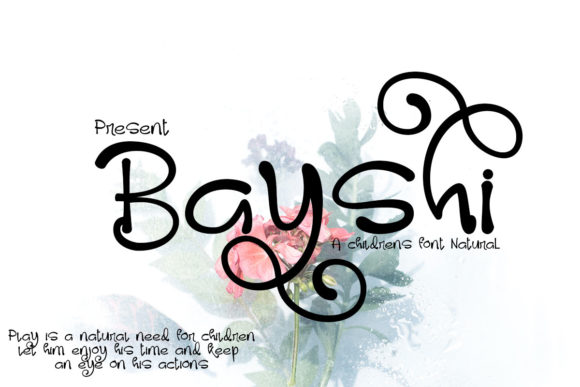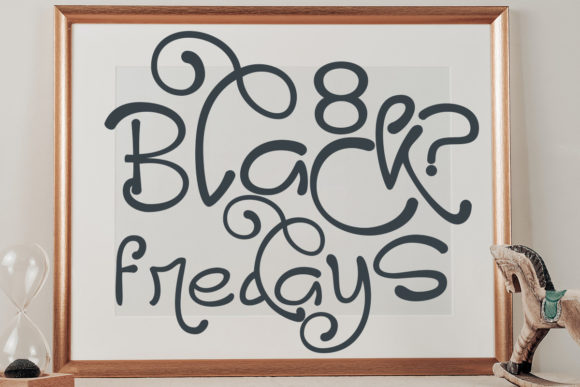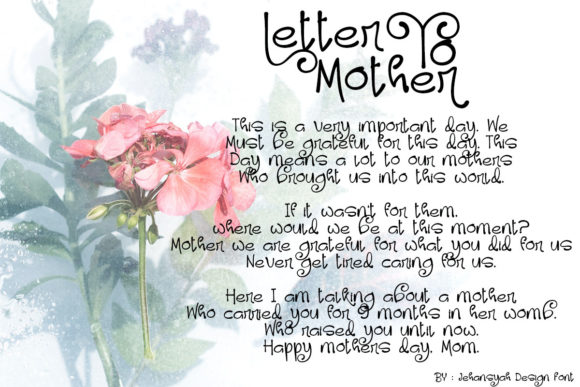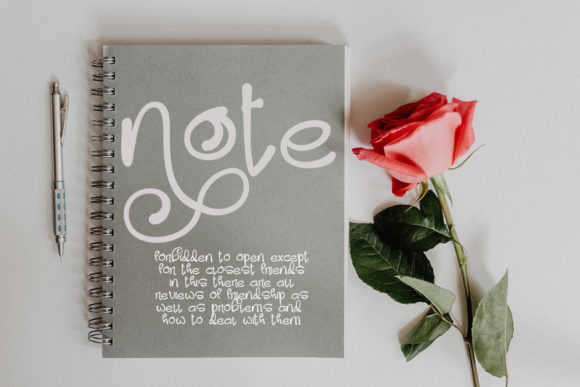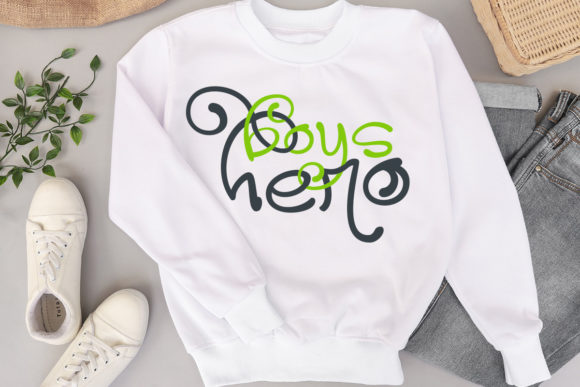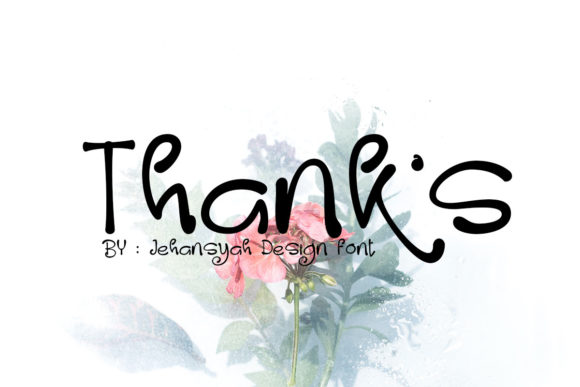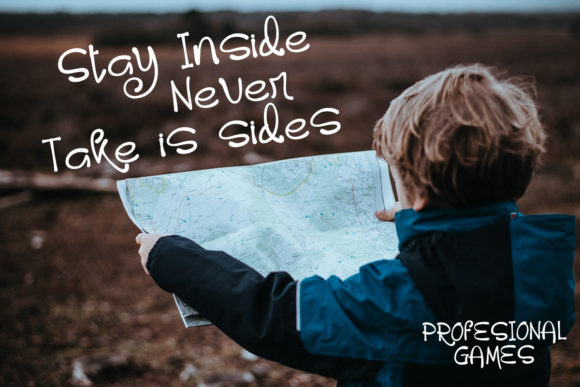
Bayshi Font
About Bayshi Font
Bayshi is a unique and funny handwritten font that looks very natural and authentic. Use it to add an impression of longing or a nostalgic accent to letters, invitations, and other formal or informal creations! This font is PUA encoded which means you can access all of the glyphs and swashes with ease!